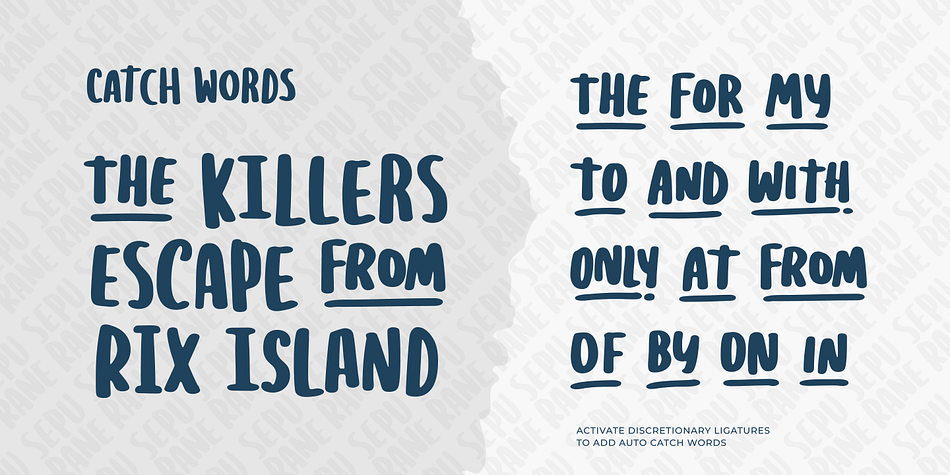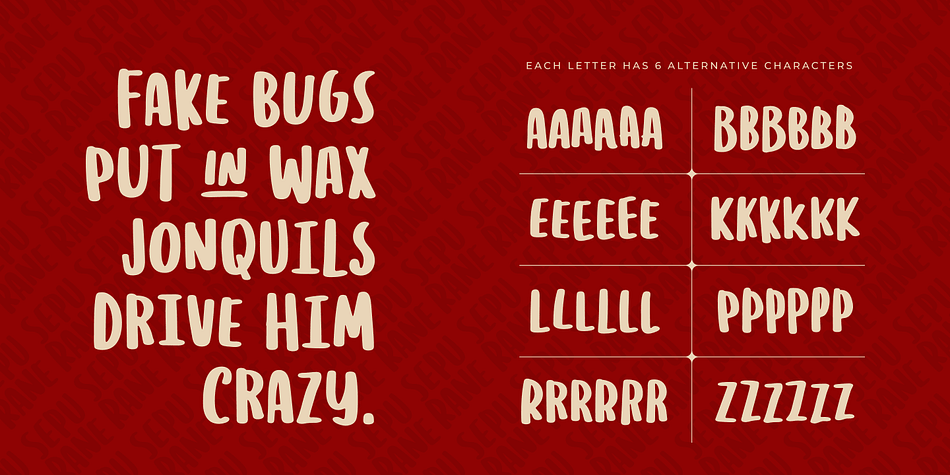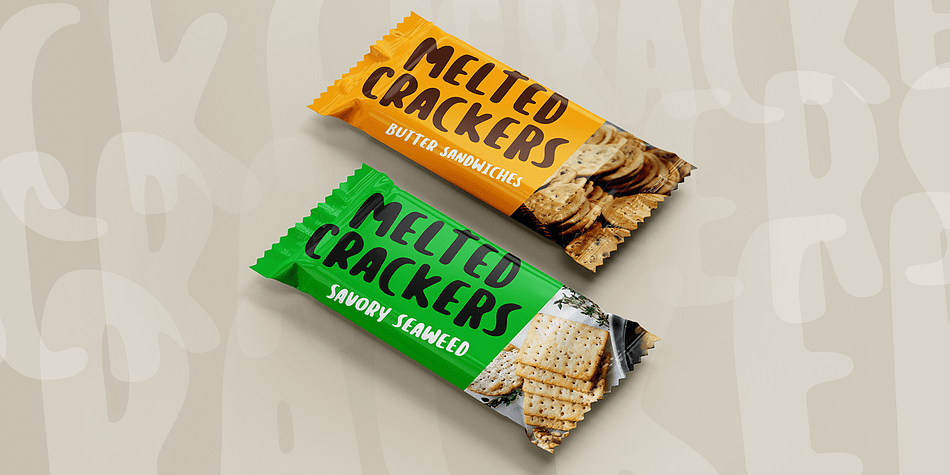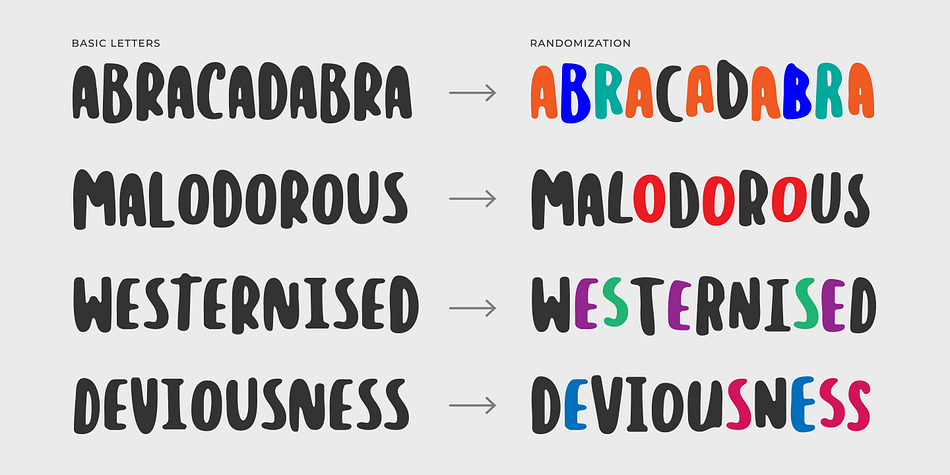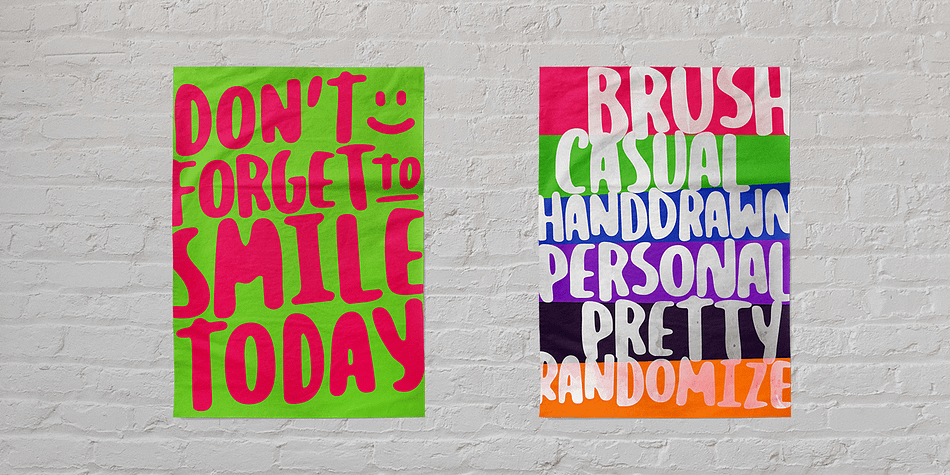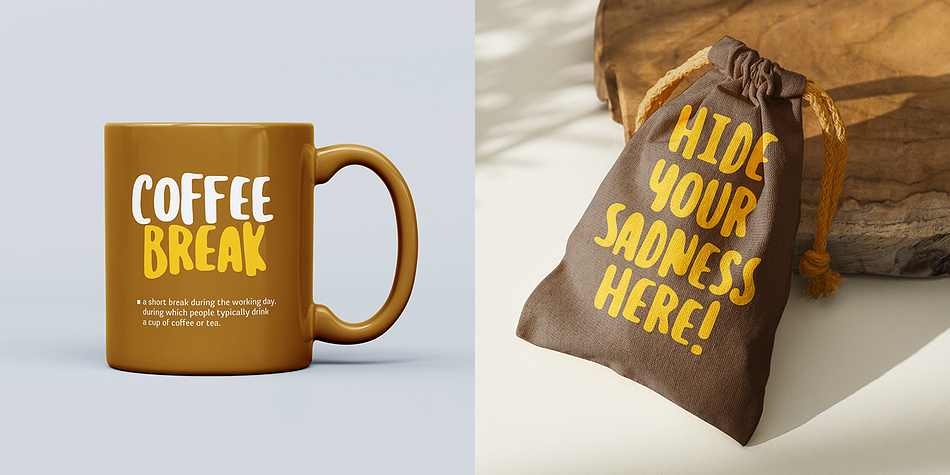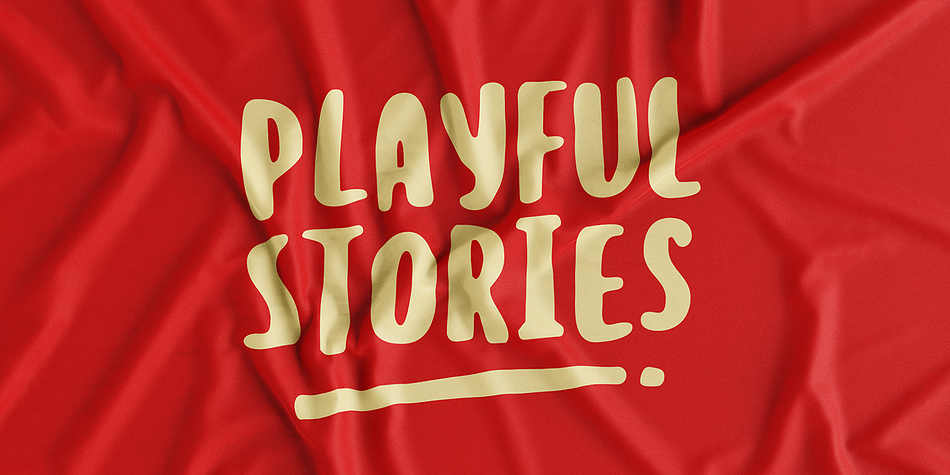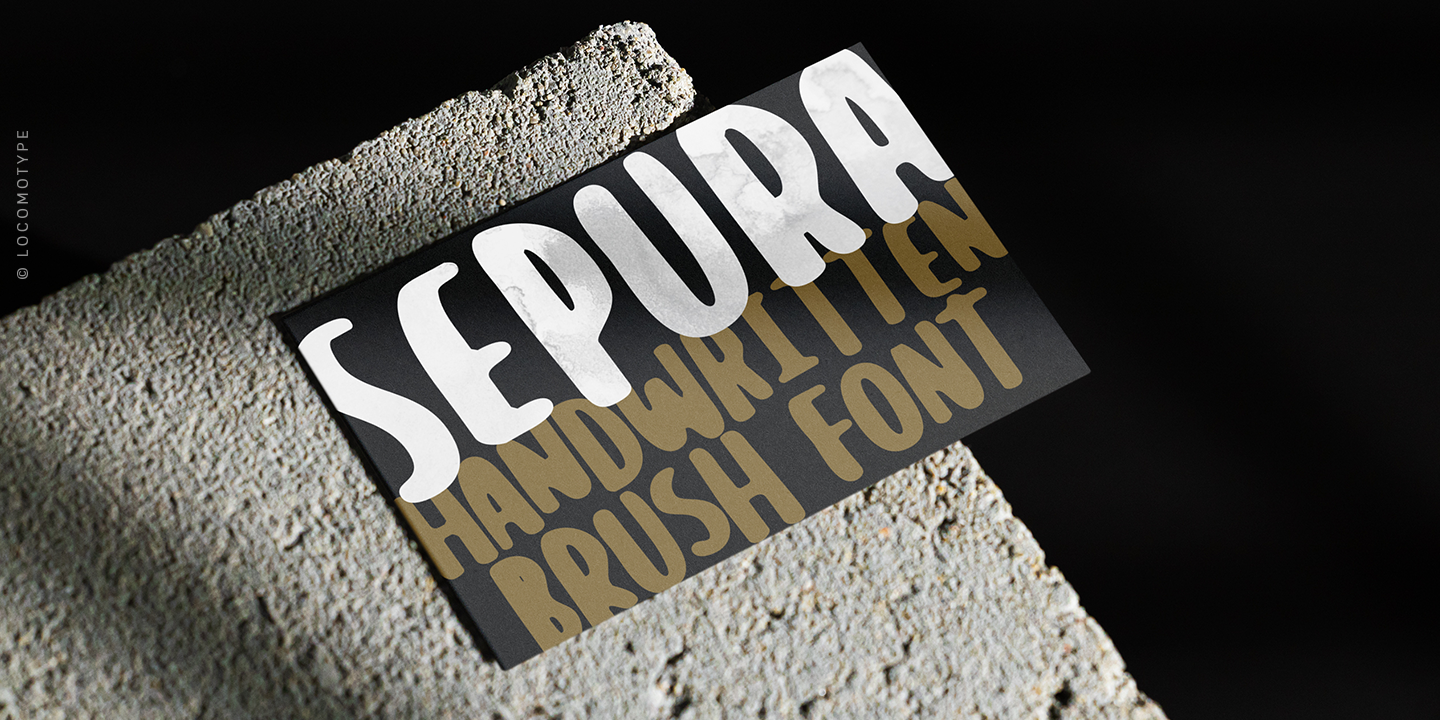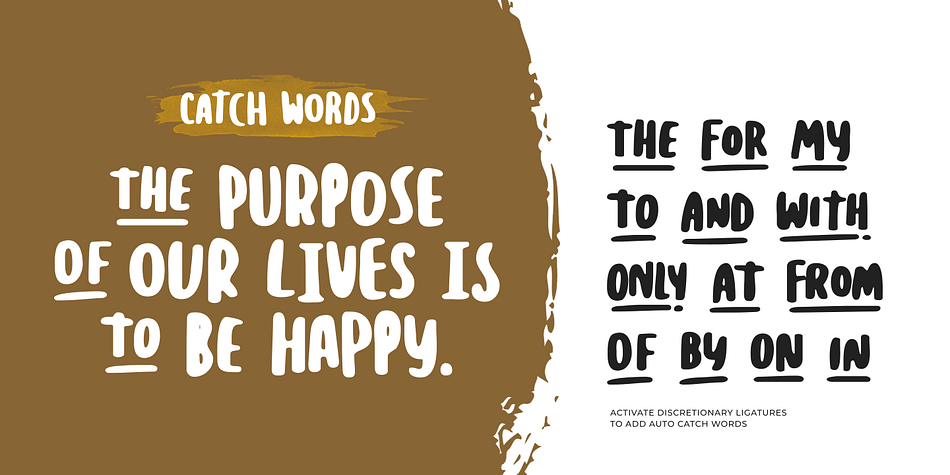
Sepura
Sepura is a comic and hand display font family. This typeface has two styles and was published by Locomotype.
People want to have a very personal font to represent themselves. A font that represents natural handwriting which usually looks dynamic, imperfect, random and casual.
Sepura font presents a handwritten style based on brush strokes. With the automatic randomization feature, Sepura gives a natural feel like real handwriting. Each letter has 6 different characters so the scope of randomization is very wide.
Besides Sepura also includes Sepurane font which is a refined version of Sepura. It has the same letters and features but with a difference in the shape of the final character which looks sharper and more legible.
There is also a catchwords feature that allows you to give different impressions on selected specific words. This font is suitable for posters, food and beverage packaging, games for children, book covers, t-shirts and much more.